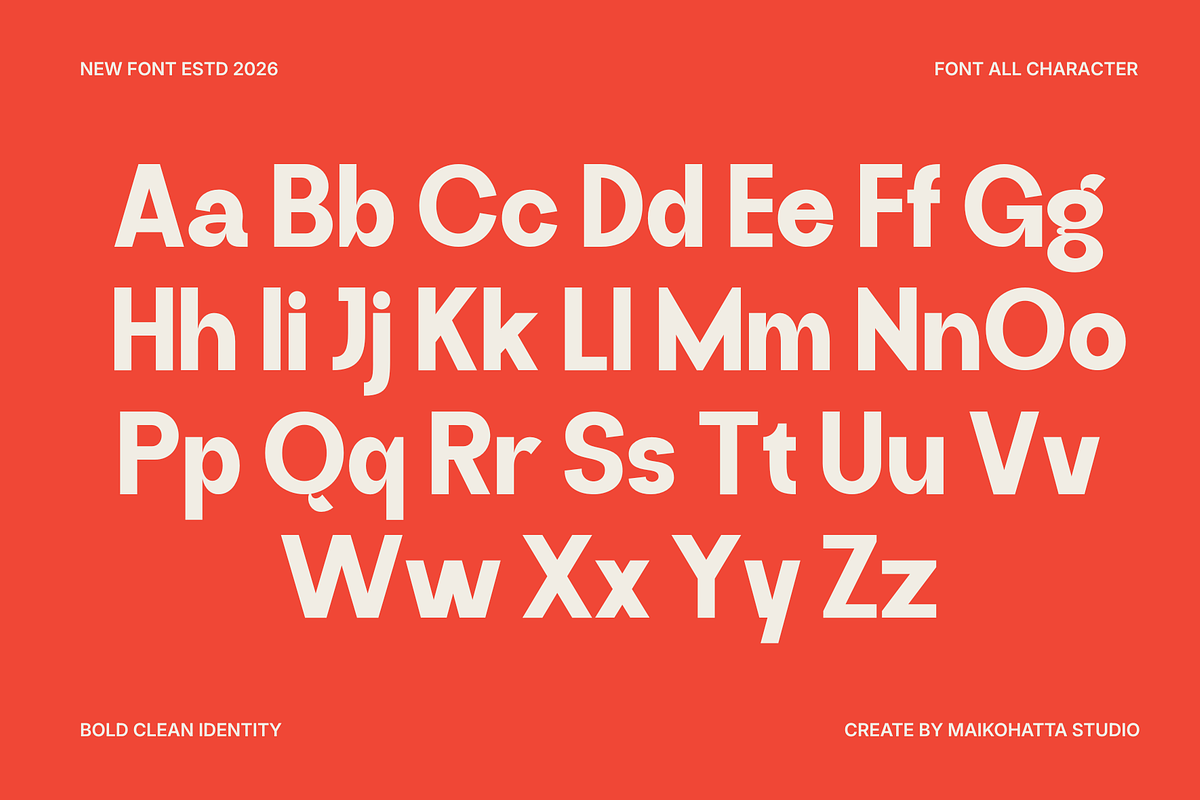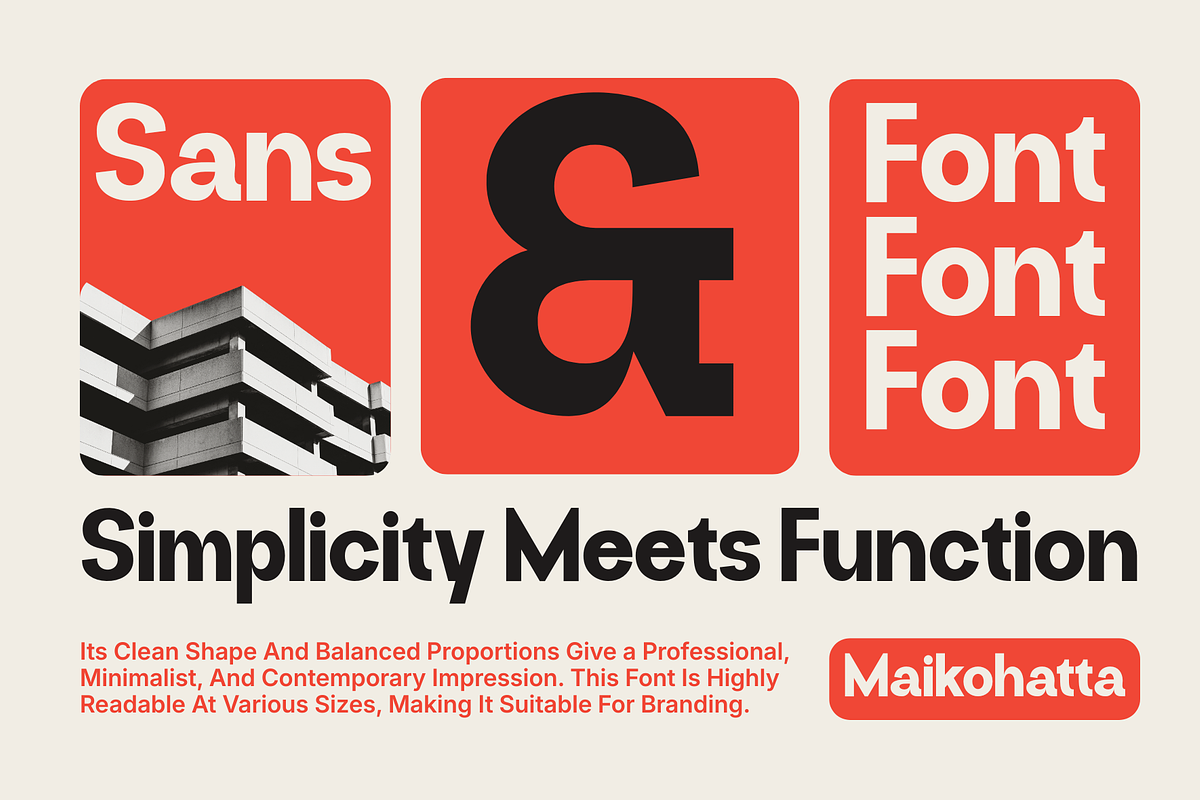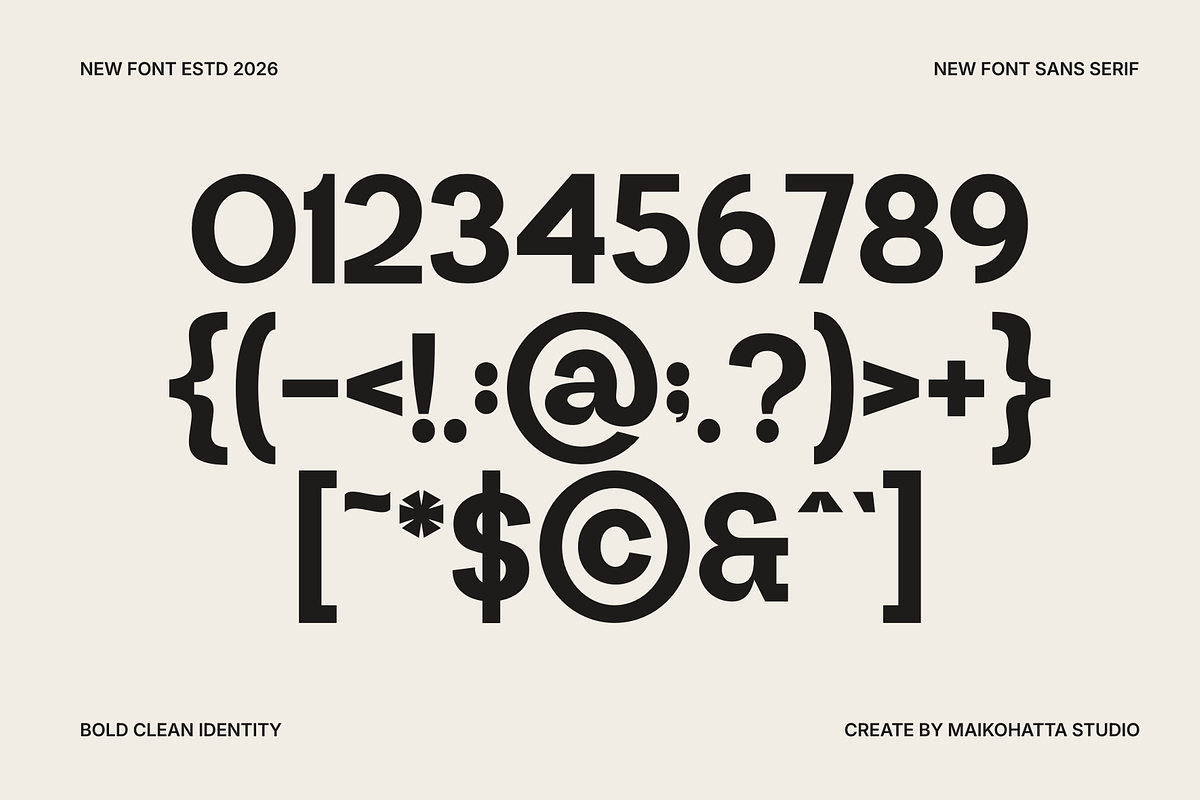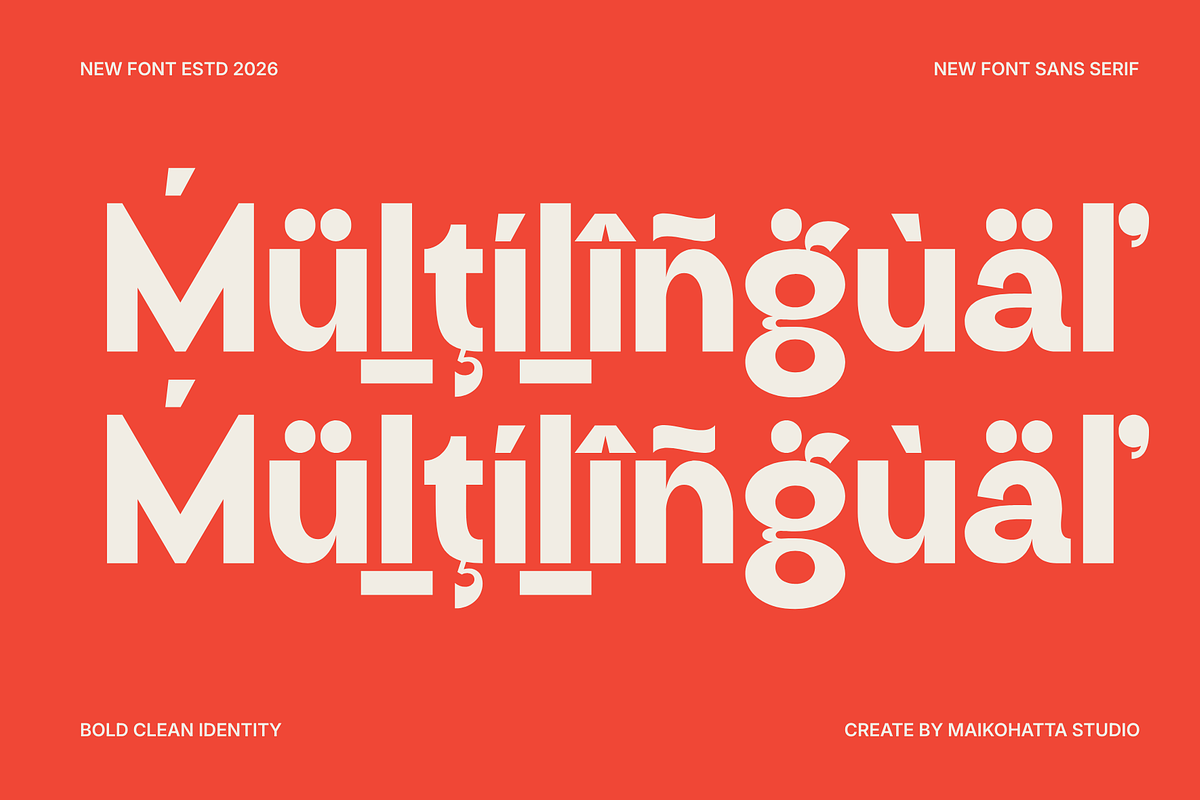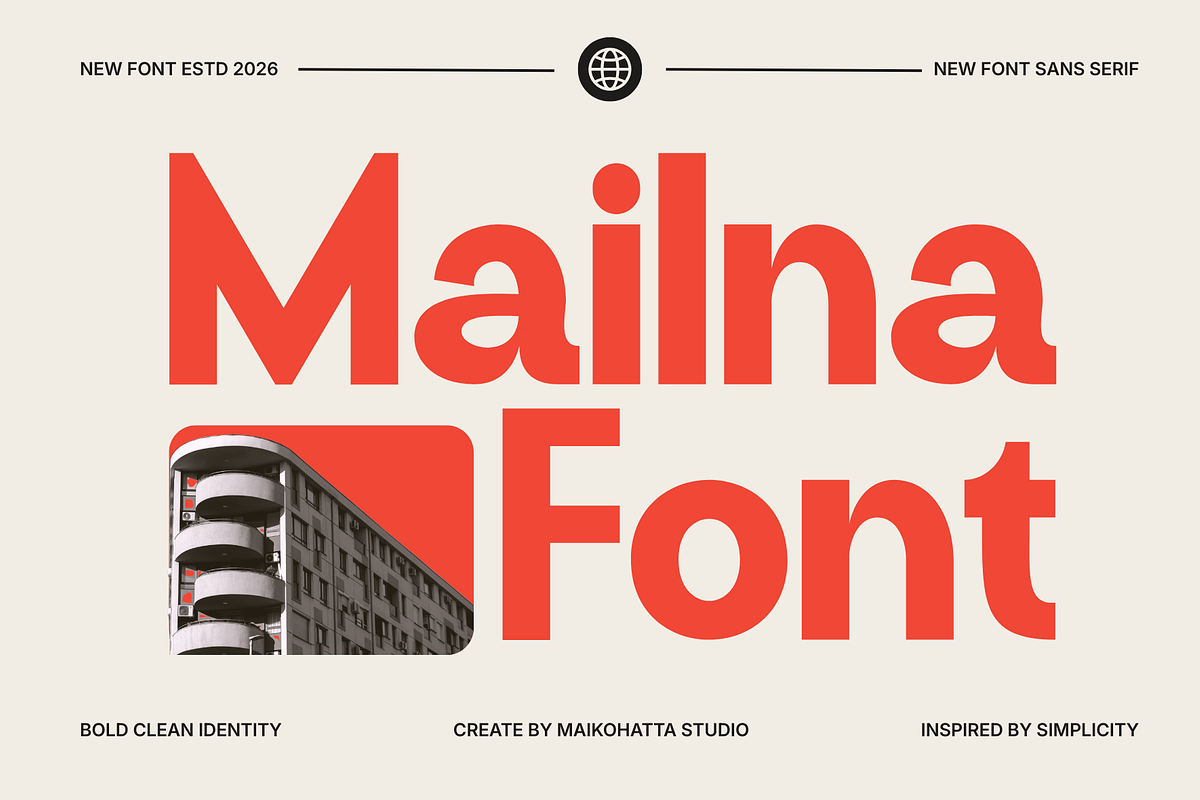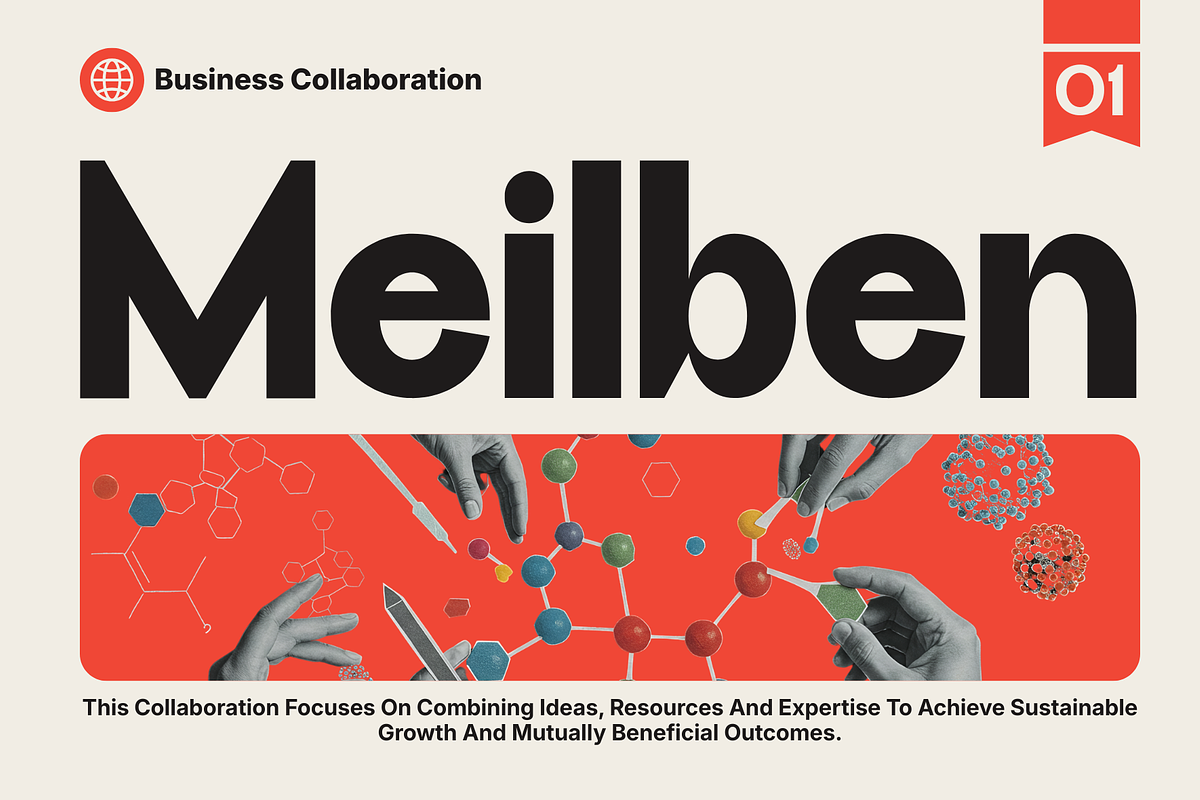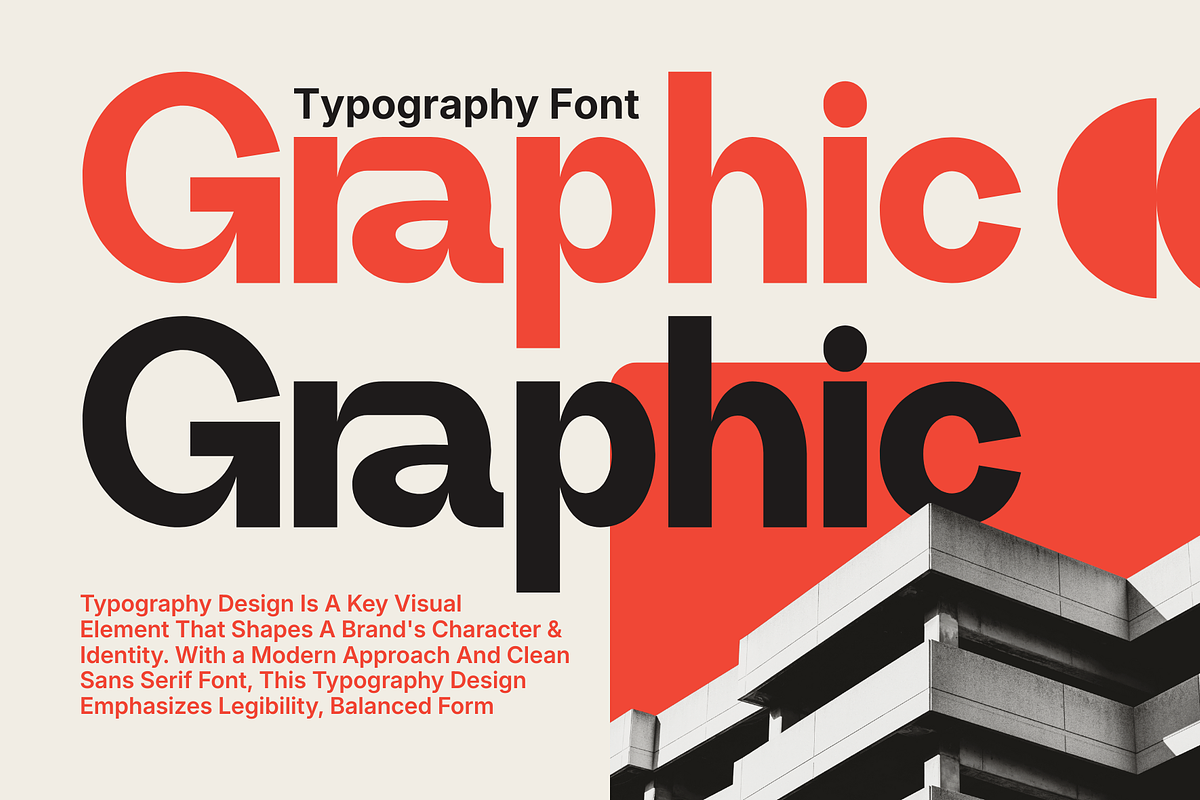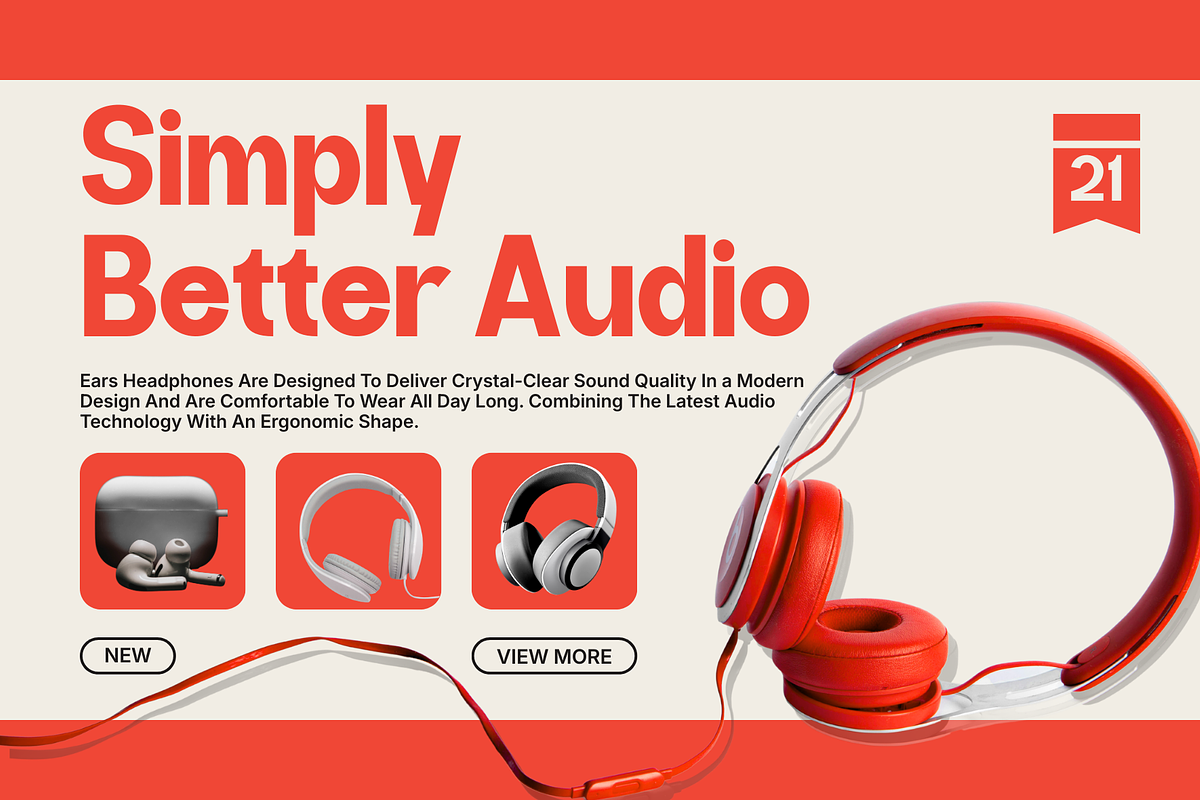
Mailna – Bold Modern Sans Serif
Mailna is a bold and modern sans serif typeface, designed with a clean, confident, and highly legible character. Featuring strong letterforms, balanced proportions, and smooth curves, Mailna presents a contemporary look that's perfect for impactful headlines and visual identities.
This font is ideal for branding, logo design, posters, editorial layouts, social media graphics, web design, and corporate projects. Its minimalist yet powerful style allows it to stand out while remaining versatile and professional across a wide range of design applications.
Mailna embodies a bold and clean identity inspired by simplicity, making it a reliable choice for designers seeking clarity, strength, and a modern aesthetic in one typeface.